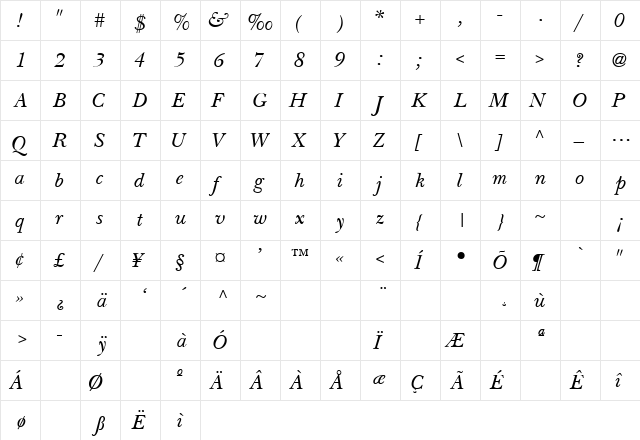
BaskervilleLightSSK Italic Font Preview
Design Context for BaskervilleLightSSK Typeface
BaskervilleLightSSK offers clean, dependable letterforms without strong stylistic allegiance, making it a practical choice for designers who need flexibility. Its italic angle brings a sense of urgency and motion to the letterforms. The delicate stroke weight brings airiness and refinement to layouts.